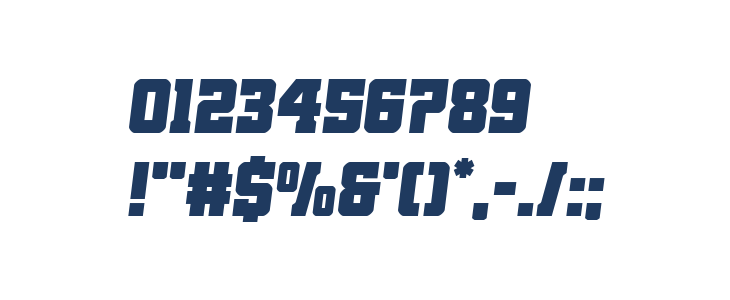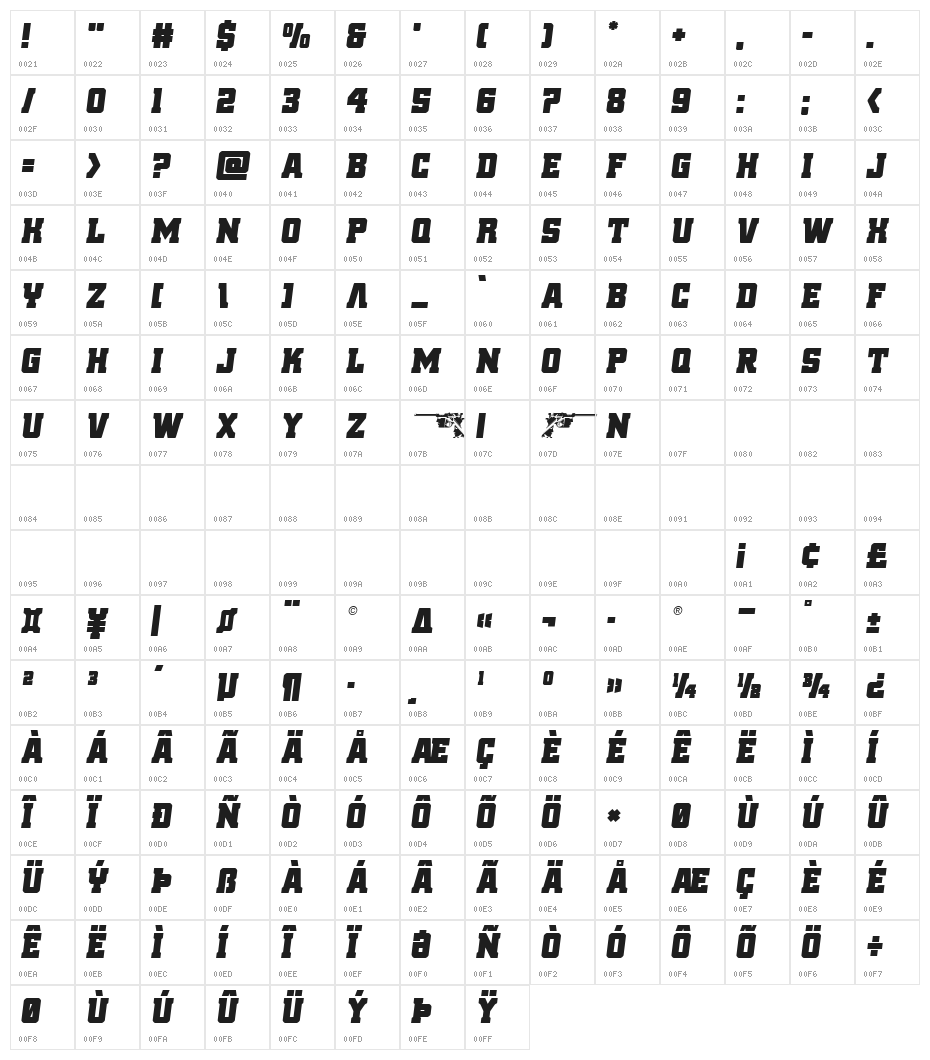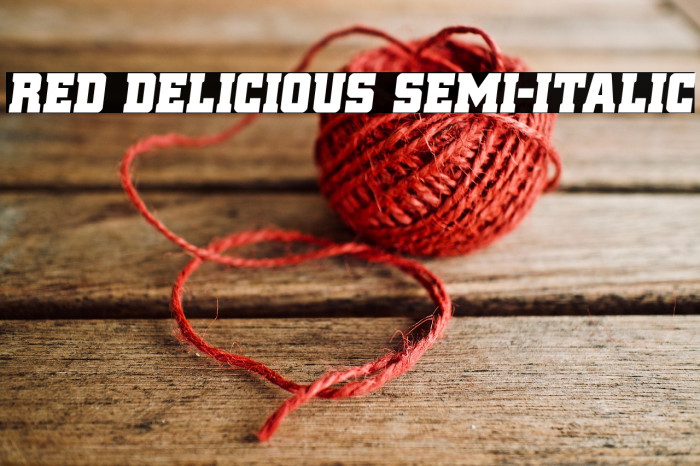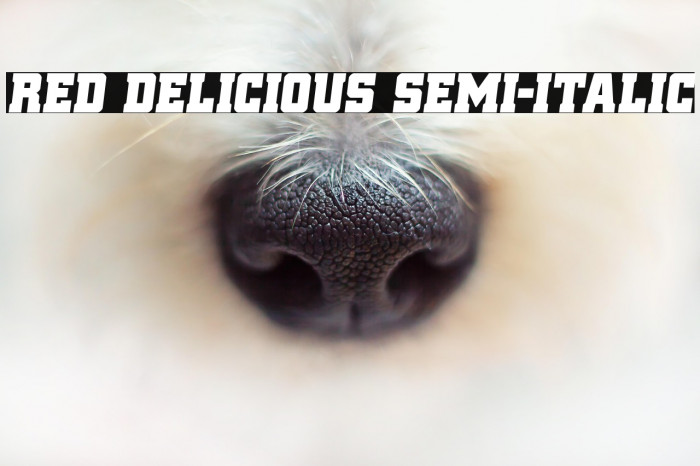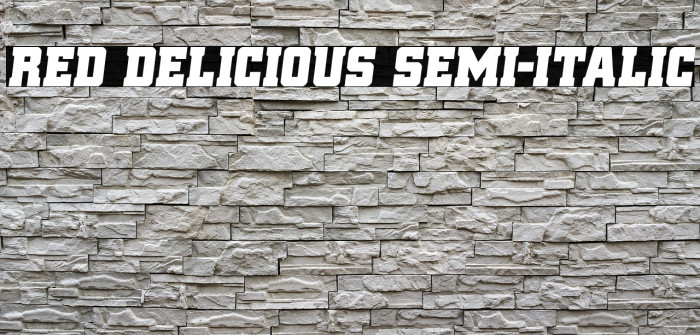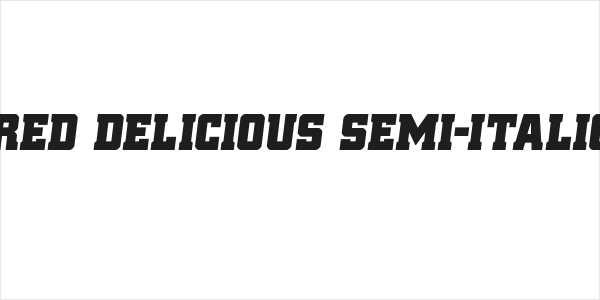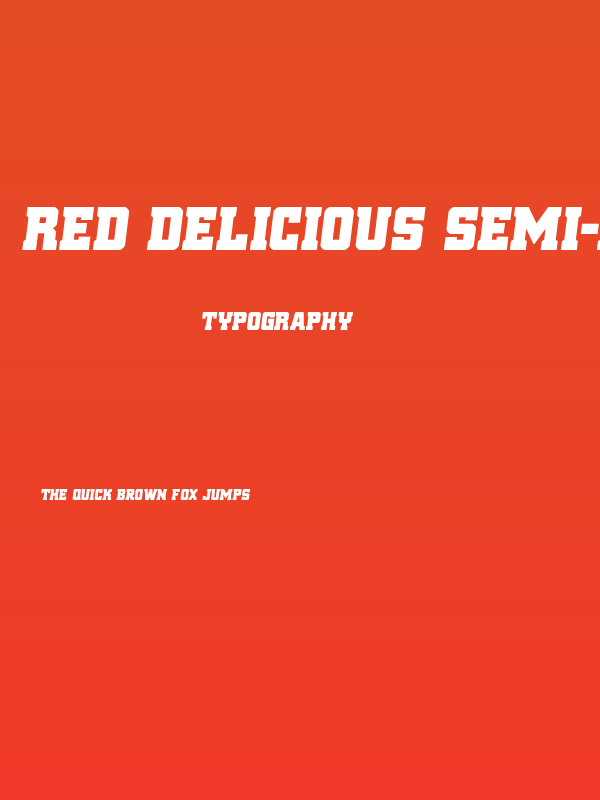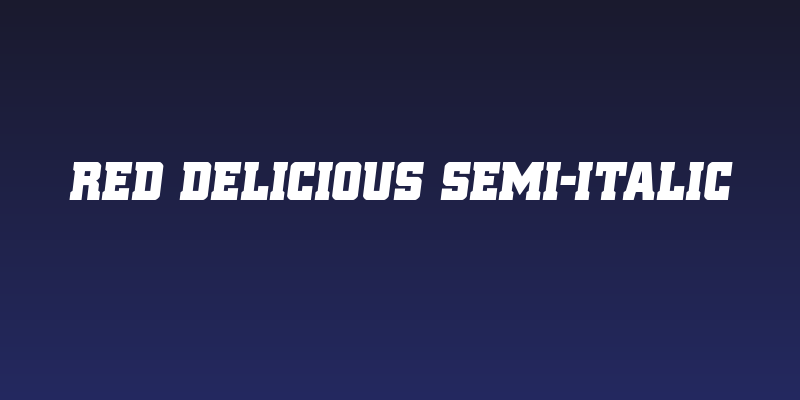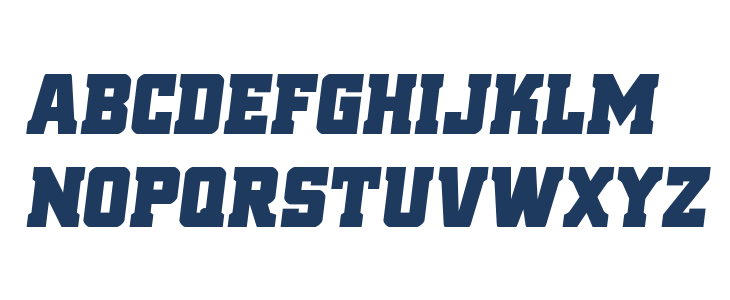
Red Delicious Semi-Italic Font
Red Delicious Semi-Italic Description
This font features bold, semi-italic characters with a strong, impactful presence. The letters are designed with a slight slant, giving them a dynamic and energetic feel. The strokes are thick and consistent, providing a robust and confident appearance. The uppercase and lowercase letters maintain a uniform style, ensuring readability and coherence. The numbers and special characters are crafted with the same boldness, making them stand out effectively. This font is ideal for projects that require a bold statement or a modern, edgy look.
| Proposed Projects | Ideal for sports branding, posters, headlines, and any design requiring a strong, modern impact. |